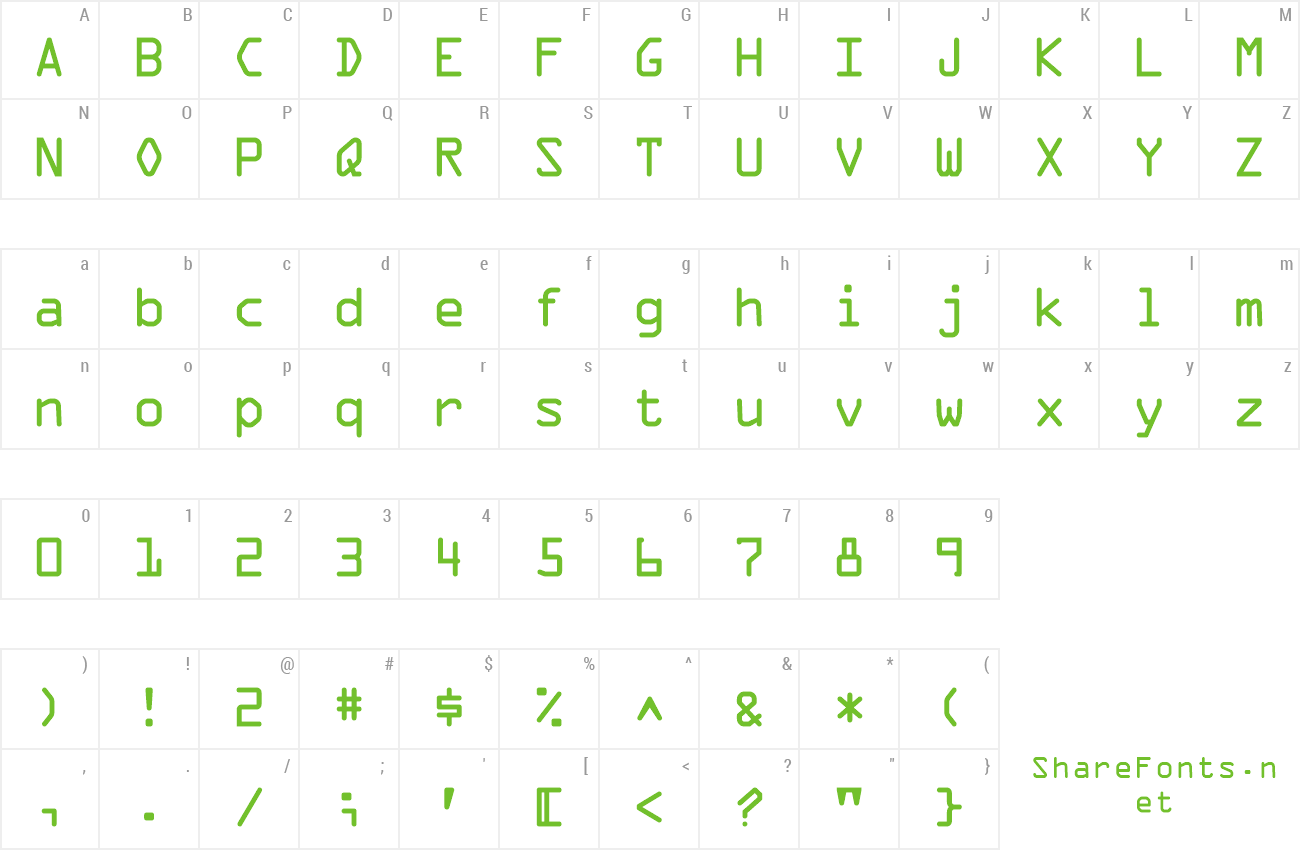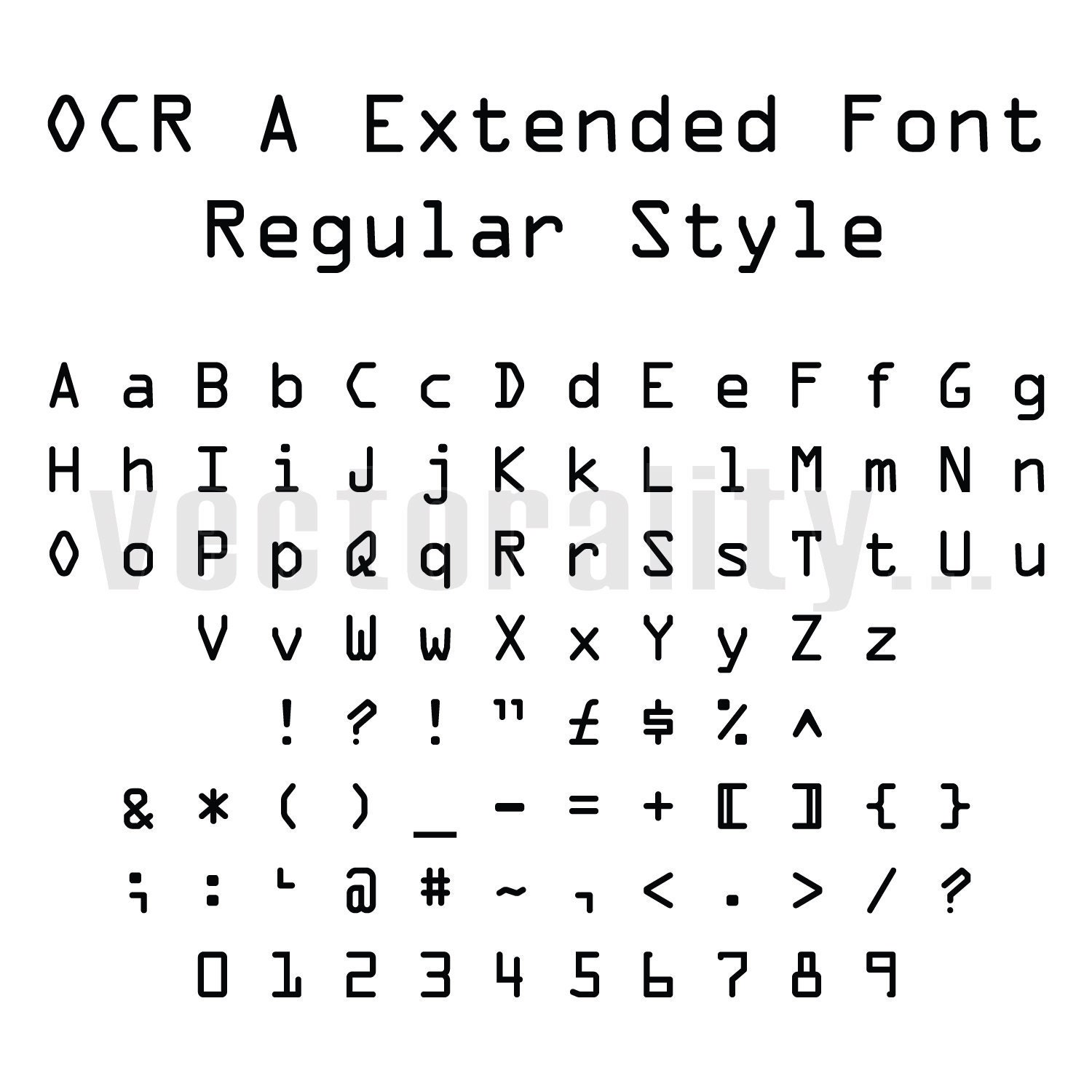
Ocr A Font Download - Web explore ocr a designed by american type founders at adobe fonts. A monospaced typeface with 1 style, available from.
Web Explore Ocr A Designed By American Type Founders At Adobe Fonts.
A monospaced typeface with 1 style, available from.